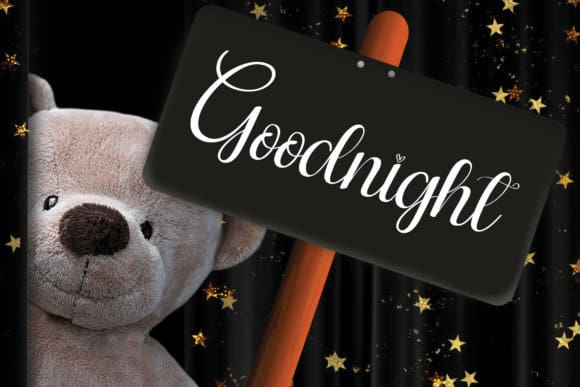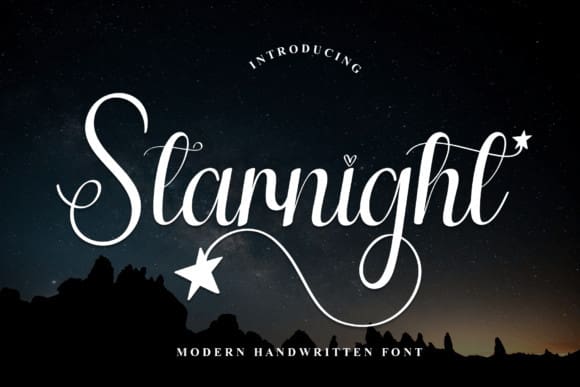
Starnight Script Font
Starnight Script Font is a sweet and friendly handwritten font. Cute and versatile, this font is ideal for writing wedding invitations, cards, or any other design that might need a fun touch!